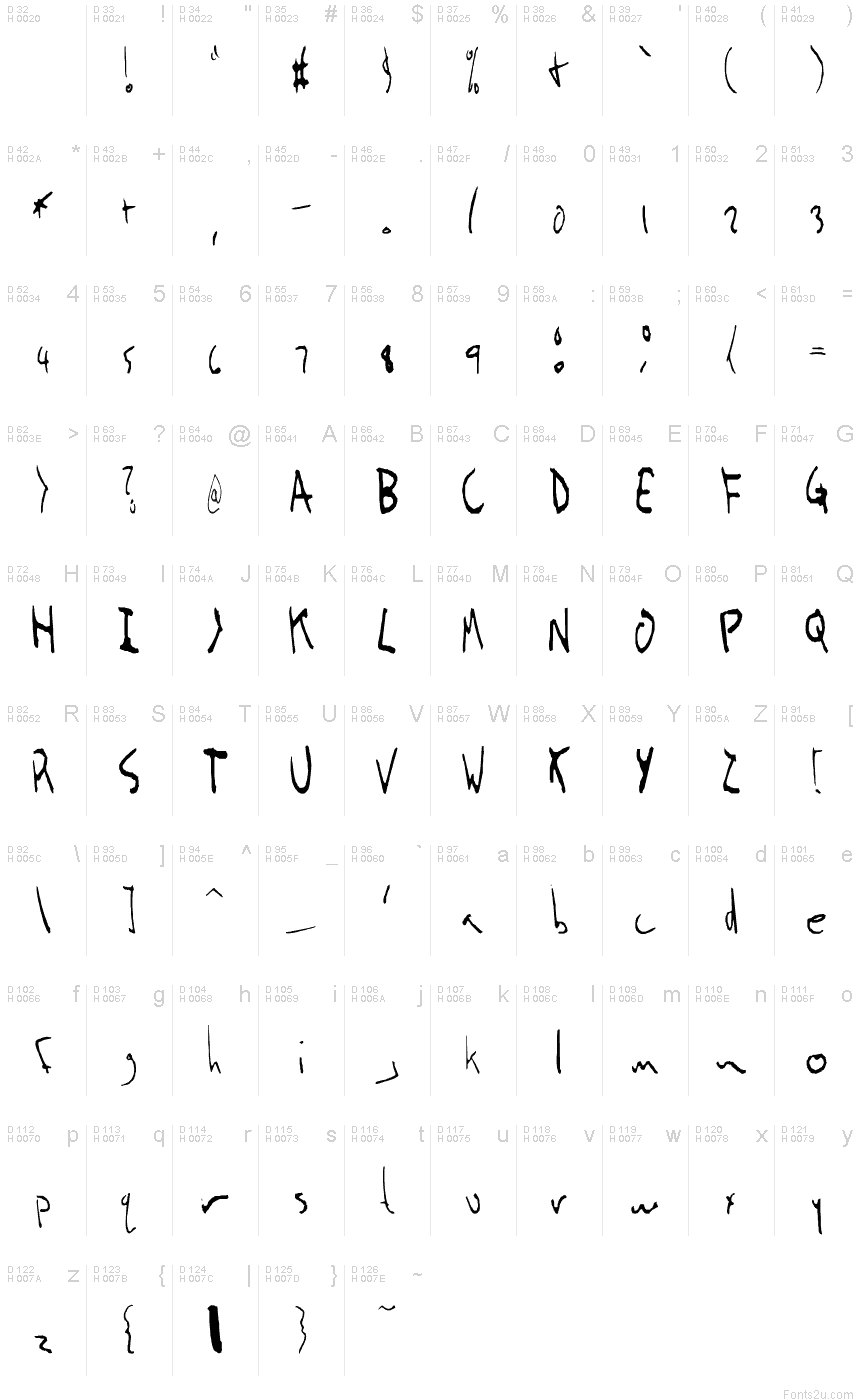
Jolf
Jolf font is a free handwritten typeface that looks like it was scratched straight onto stone with a charcoal stick. Its tall, twitchy strokes and uneven, inky edges feel raw and instinctive, like notes scrawled in a hurry or symbols from a found diary. The letters wobble and wander just enough to feel wild, while still holding together as a legible, cohesive voice.
Using Jolf, you get a hand-drawn texture that instantly roughens up clean layouts and adds a jittery, human energy. This free font works beautifully for zines, experimental posters, horror or mystery titles, indie album art, grunge branding, and game interfaces that need a primitive or ritual vibe. Try pairing Jolf for headlines with a plain geometric sans in the body copy to keep things readable while the title does all the shouting.